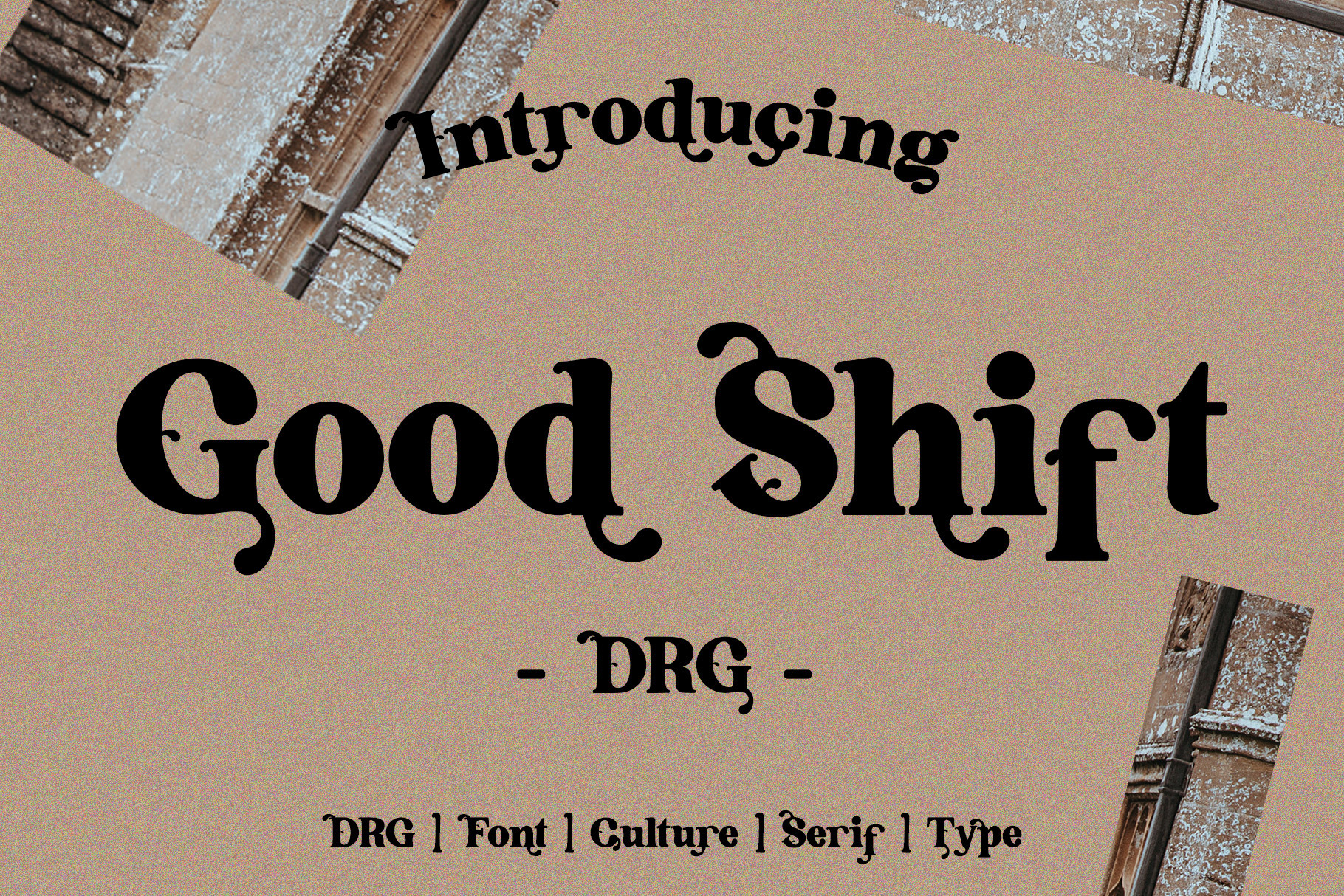
Good shift font
Good Shift is a cool, trendy and bold serif font. This font is PUA encoded which means you can access all glyphs and swashes with ease! Add it confidently to your favorite creations and let yourself be amazed by the outcome generated.